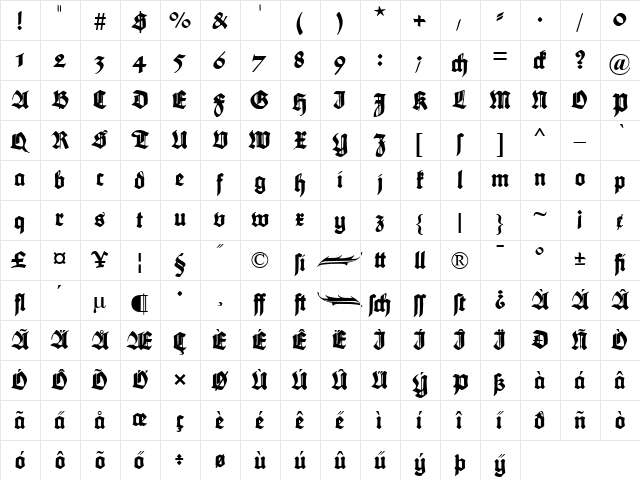
Maximilian Regular
| Designer | Dieter Steffmann |
Design Context for Maximilian Typeface
Maximilian is a composed and adaptable typeface that performs quietly and consistently across a wide range of design contexts.